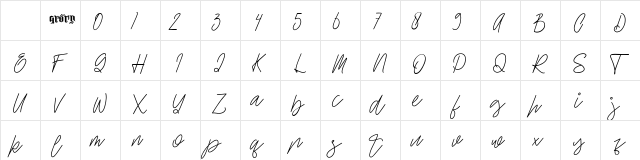
Ellaine Demo is a composed and adaptable typeface that performs quietly and consistently across a wide range of design contexts.
Pro Tip: Use Ellaine Demo in both headline and body roles to test its range before committing to a single application.